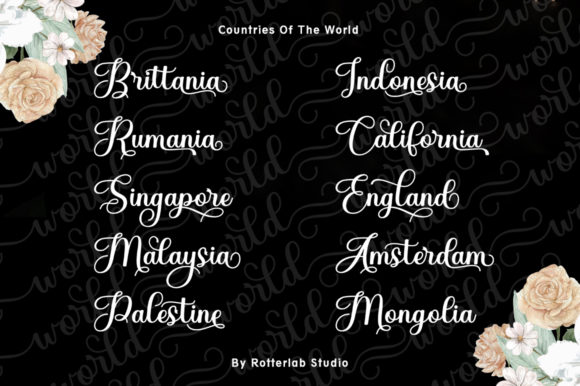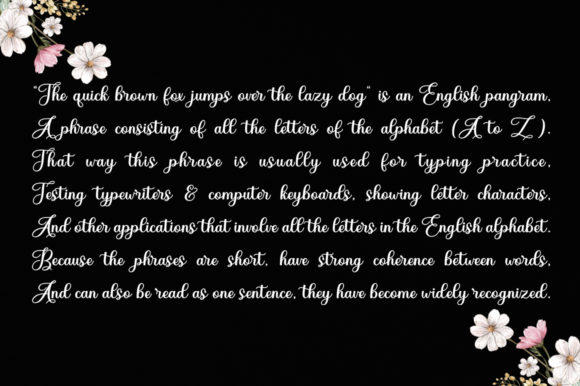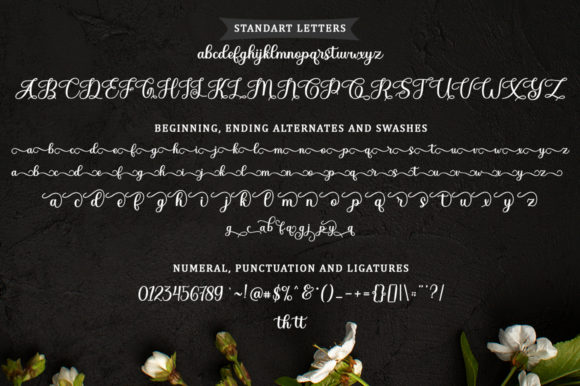
Unlock the Secret to Elegant Design: Diary Angelique Font
Have you ever been sitting at your desk, staring at a blank page, trying to bring your design vision to life? You know, that moment when you’re desperate for the perfect font to elevate your project from ordinary to extraordinary? For designers like you, I’m excited to introduce the Diary Angelique Font – a stunning, handwritten font that’s sure to add a touch of luxury to any design project.
| 👤 Author | rotterlabstudio |
This exquisite font features delicate swashes and a dainty feel that’s perfect for creating a romantic, whimsical atmosphere. With its PUA encoding, you’ll have access to all the amazing glyphs and ligatures, allowing you to unlock its full potential and take your designs to the next level.
- Unique Characteristics: Elegant and feminine script font, perfect for wedding invitations, greeting cards, and other feminine designs
Designer Review: Diary Angelique Font
Overall, I think Diary Angelique is a lovely, elegant font. ✨ The curves and flourishes add a touch of sophistication to any design. It’s perfect for wedding invitations, greeting cards, or any project that needs a romantic, whimsical feel.
- ✨ Beautiful, flowing curves and flourishes
- ✨ Elegant and sophisticated feel
- ✨ Great for projects with a romantic or whimsical theme
However, there are a few limitations to keep in mind. ⚠️ The font may be a bit too ornate for some projects, and the weight of the letters can make it difficult to read at small sizes. Additionally, the font may not be suitable for digital use due to its complex design.
- ⚠️ May be too ornate for some projects
- ⚠️ Can be difficult to read at small sizes
- ⚠️ May not be suitable for digital use
Overall, I think Diary Angelique is a great choice for designers who want to add a touch of elegance and romance to their projects. Just be aware of its limitations, and use it in projects where its unique design will shine.
For a more vintage look, pair the Diary Angelique Font with distressed or watercolor effects.
Use the font for titles, headings, or quotes to add a touch of elegance to your design.
The Diary Angelique Font is perfect for:
Vintage-inspired advertising and marketing materials
Personalized gifts and cards